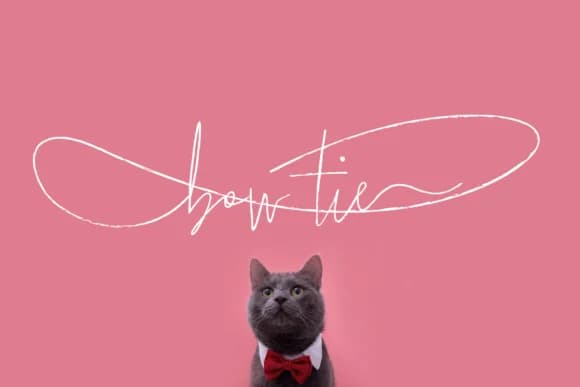
Casual Mark Script by Pedro Alexandre Teixeira is an expressive hand-lettered script designed to add personality and warmth to your typography. With its flowing letterforms and genuine handwritten character, this typeface brings an authentic, personal touch to any project that calls for a human-centered aesthetic rather than sterile, corporate precision.
The font includes a Bold weight option, giving you flexibility for emphasis and hierarchy in your designs. Extensive ligatures and multiple alternate lowercase letters allow you to customize the appearance of your text, creating natural letter combinations that mimic authentic handwriting. This versatility makes it especially suited for craft-focused applications like wedding invitation suites, custom product labels, personalized greeting cards, and boutique branding projects where a distinctive, individual voice matters more than conformity.
- Elegant, Flowing, Casual Mark Script
Casual Mark Script Font is a script font that shines as a display or heading face. Pair it with a clean sans-serif or serif font for body text β the contrast creates a clear hierarchy while the two styles stay balanced and easy to read.